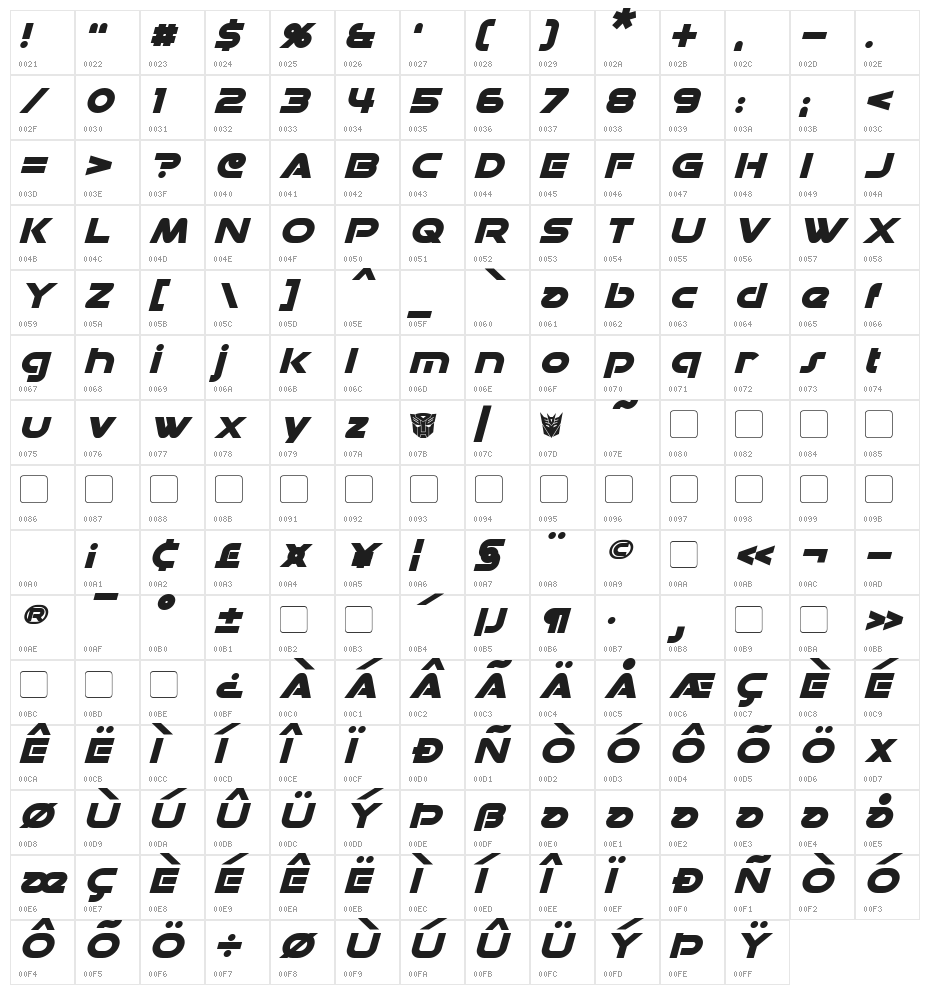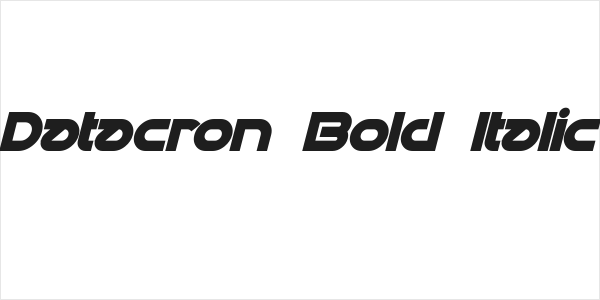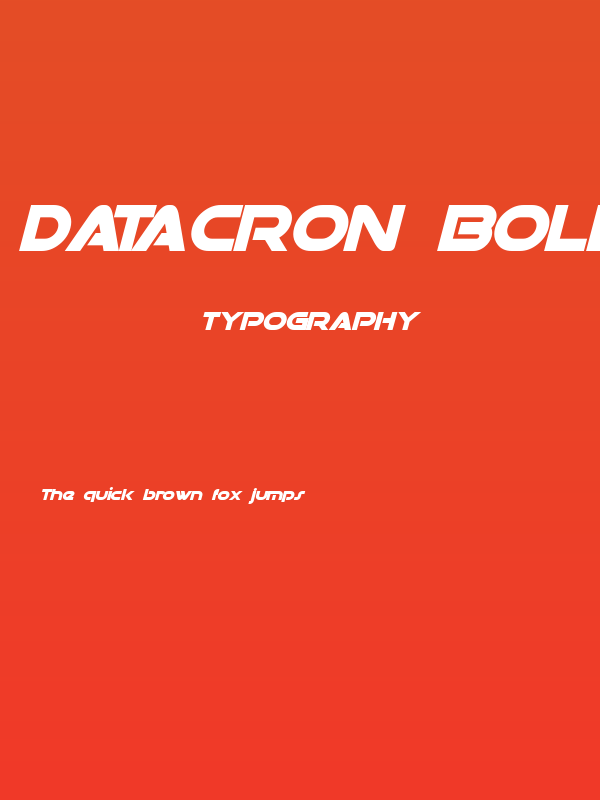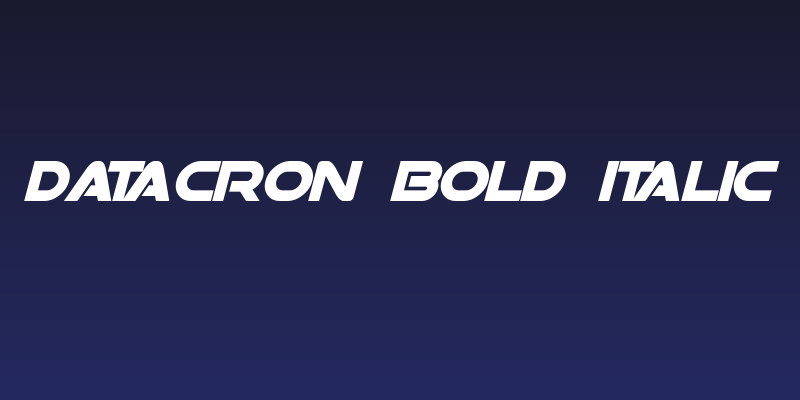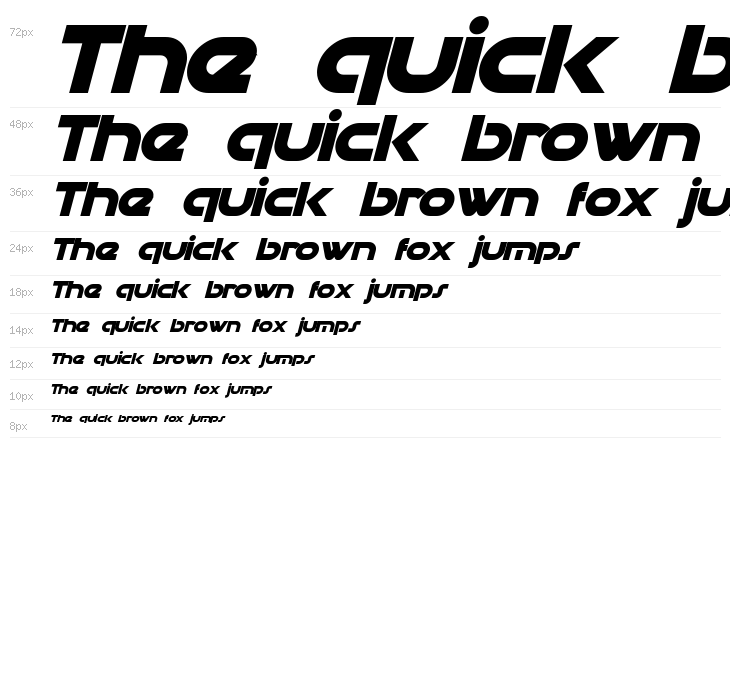
Datacron Bold Italic Font
Datacron Bold Italic Description
This font features a bold and italicized style with a futuristic and dynamic appearance. The characters are designed with sharp angles and a forward-leaning slant, giving them a sense of motion and speed. The uppercase and lowercase letters maintain a consistent geometric structure, while the numerals and special characters complement the overall aesthetic. The font's bold weight and italic style make it stand out, suitable for attention-grabbing designs. Its modern and sleek look is ideal for projects that require a contemporary and edgy feel.
| Overall Style | Futuristic, Dynamic |
| Proposed Projects | Ideal for technology branding, sci-fi posters, video game titles, and modern advertising campaigns. |